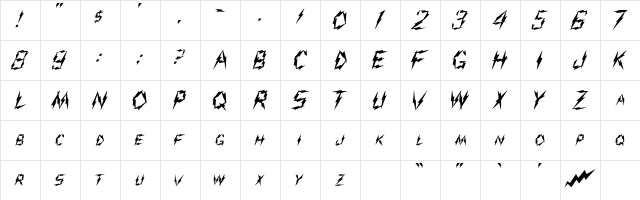
Aarcover Medium
Design Context for Aarcover Typeface
Aarcover is a composed and adaptable typeface that performs quietly and consistently across a wide range of design contexts.